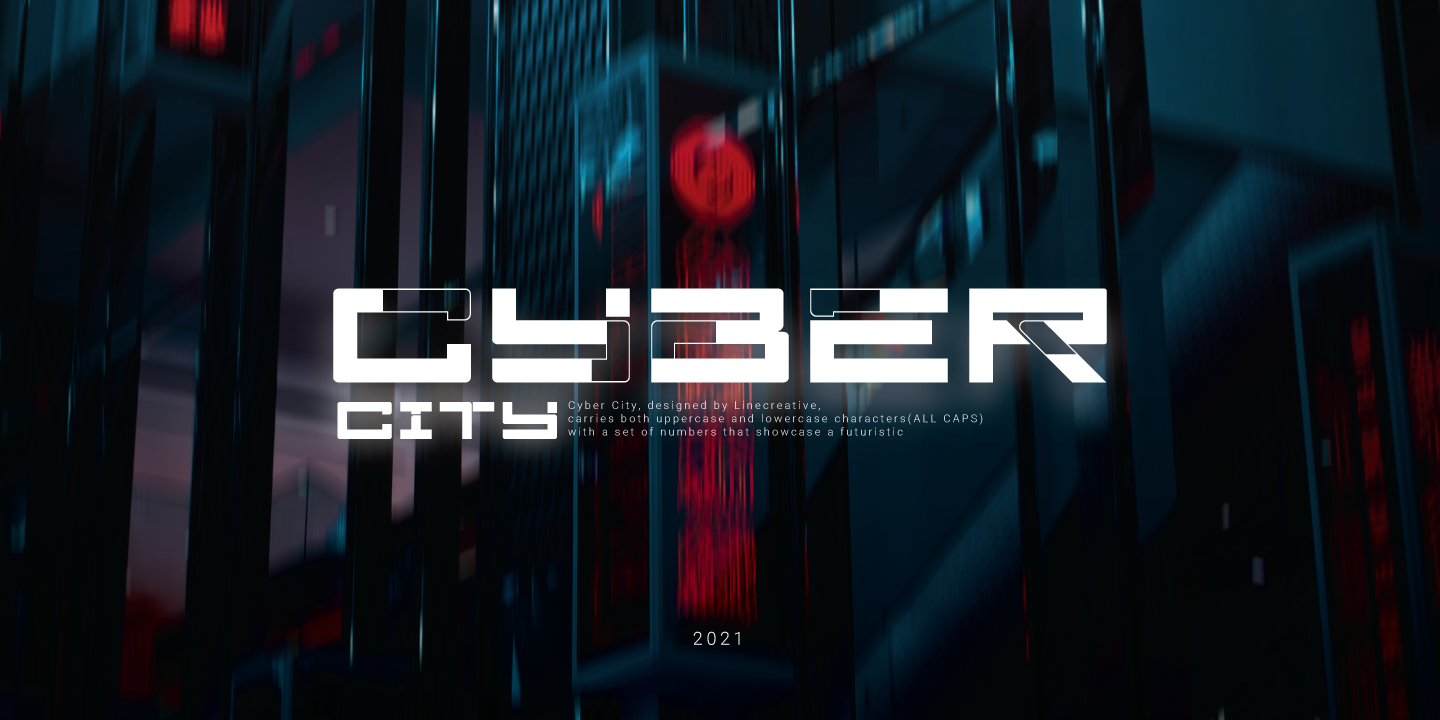
Cyber City Font is perfect for futuristic tech branding, cyberpunk-themed designs, sci-fi movie posters, gaming interface design, digital transformation campaigns, innovative software marketing, blockchain technology branding, virtual reality applications, AI company identities, and cutting-edge technology promotions. This futuristic typeface excels in environments where technological advancement and digital innovation are essential for establishing next-generation brand presence.
What makes Cyber City Font exciting is its visionary capture of digital future aesthetics through sleek, technology-inspired letterforms that seem to pulse with electronic energy and cybernetic precision. The font features angular, high-tech characteristics with circuit-inspired details that convey innovation, digital sophistication, and the limitless possibilities of technological advancement. This cybernetic aesthetic makes it ideal for brands seeking to communicate technological leadership, digital transformation, and the revolutionary potential of emerging technologies.
Cyber City Font family includes Light, Regular, Medium, Bold, Black, Digital, Matrix, and Neon variants. Each style maintains the font's distinctive cyber character while offering different levels of technological intensity and futuristic expression, enabling designers to create authentic sci-fi compositions that celebrate digital innovation and cybernetic advancement across various tech applications.
The Cyber City Font Free Download offers designers access to a premium futuristic typeface that embodies the spirit of digital revolution and technological evolution. This font's cybernetic aesthetic and advanced qualities make it particularly valuable for technology companies, gaming studios, and innovative organizations seeking to establish genuine connections with audiences who appreciate cutting-edge technology and digital transformation.
Tech design professionals appreciate the font's ability to instantly communicate innovation, digital sophistication, and futuristic vision. The letterforms' angular characteristics and cyber-inspired details create technological connections that traditional fonts cannot achieve, making it essential for projects requiring distinctive sci-fi personality and advanced technology appeal.
When working with Cyber City Font, designers can create compelling visual narratives that resonate with tech enthusiasts and digital transformation communities. The font's cybernetic character makes it especially effective for brands in technology, gaming, artificial intelligence, and digital services where authentic technological credibility and futuristic appeal are crucial for innovation positioning.
For digital applications, Cyber City Font maintains its distinctive cyber qualities across different platforms while ensuring excellent readability in modern tech interfaces. Its optimized spacing preserves the angular character essential for authentic cybernetic appeal.
Technology marketing agencies consistently select Cyber City Font for projects requiring genuine futuristic appeal and cyber authenticity, where conventional typography cannot capture the desired innovation and digital advancement that defines contemporary technology culture and cybernetic design movements.